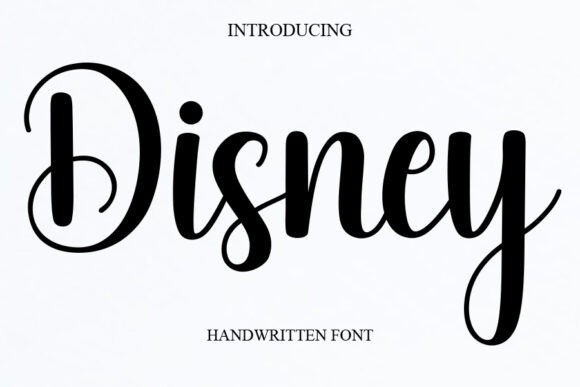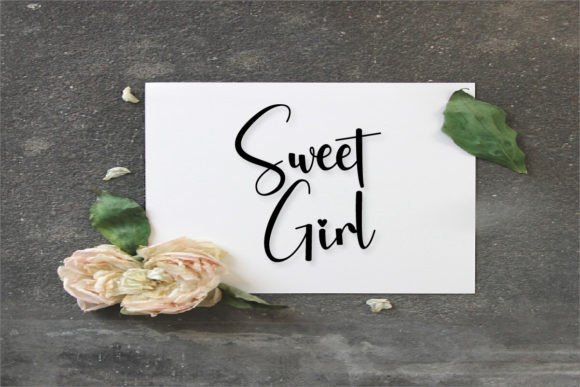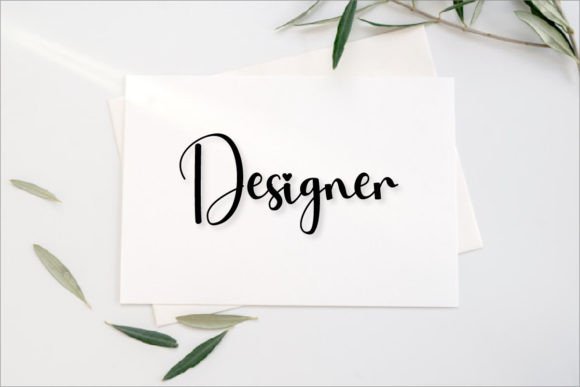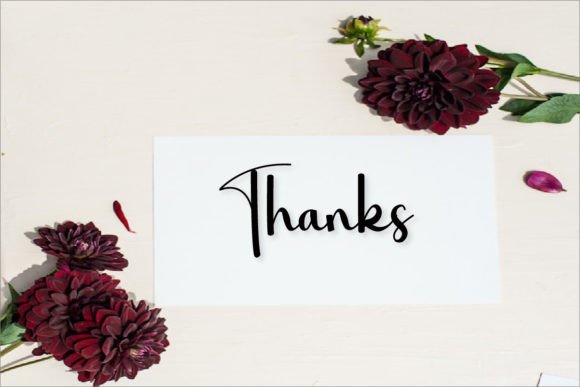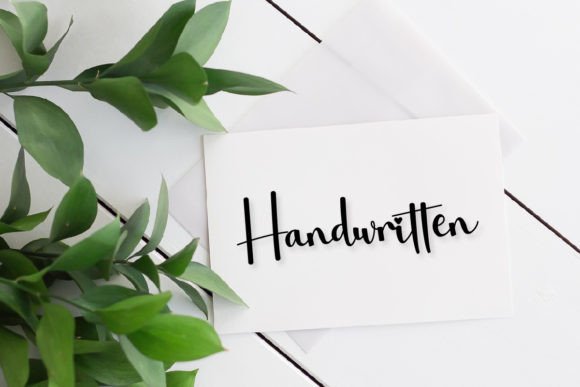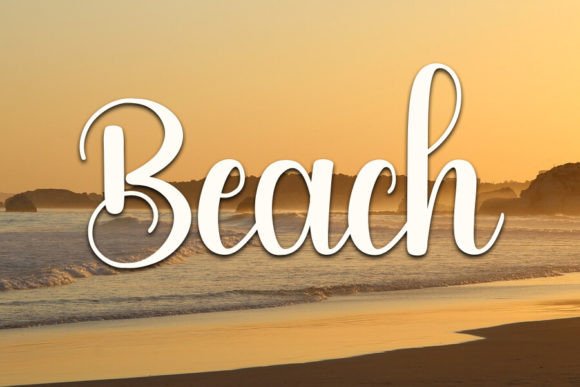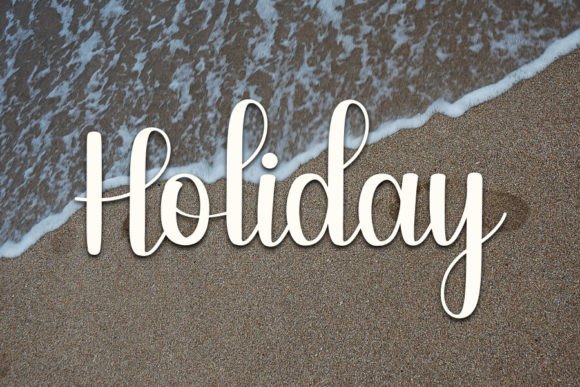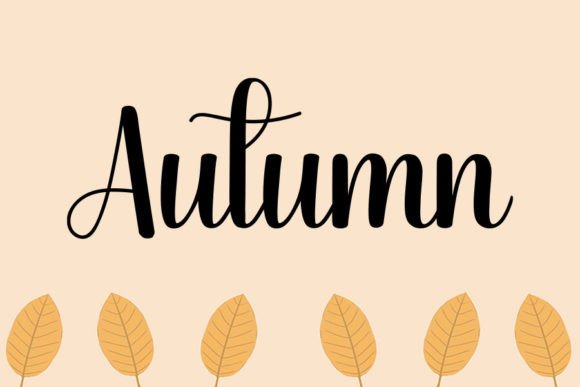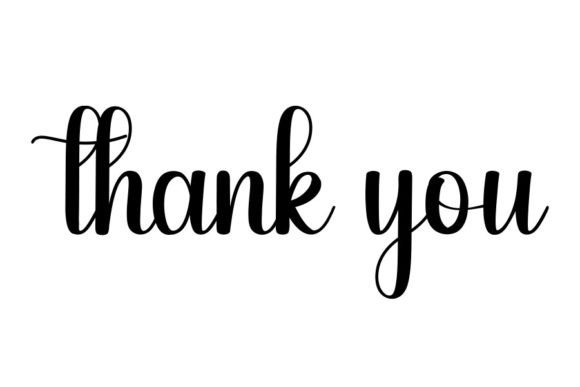
The Magic of Disney Font: Adding a Touch of Whimsy to Your Designs
Do you remember the first time you fell in love with the Disney brand? For many of us, it was the moment we saw the iconic Disney logo or read the beautiful typography on a Disney movie poster. The Disney Font has been a part of that magic for decades, and now you can bring that same enchantment to your designs.
The Disney Font is a sweet and cursive handwritten font that is perfect for adding a touch of joy and romance to your projects. Whether you’re creating branding materials, wedding invitations, or marketing campaigns, this font is sure to make your designs stand out. As a designer, you know how valuable it is to have a versatile font that can elevate your work and make it truly special. The Disney Font is that perfect addition to your toolkit, and we’re excited to share its magic with you.
Key Features of Disney Font
• Unique Characteristics: The Disney Font features a distinctive, hand-drawn style with subtle flourishes and organic shapes, evoking a sense of nostalgia and whimsy.
Disney Font Review
Overall, I’m underwhelmed by the Disney Font. While it’s a nod to nostalgia, I think it falls short in terms of versatility and practical application. ✨ However, there are a few things it gets right.
• ✨ The font does capture the essence of classic Disney lettering, which can be a nice touch for projects that require a retro or vintage feel.
• ✨ The font family includes a range of weights and styles, which can be helpful for creating visual hierarchies and adding depth to designs.
• ✨ The font is well-behaved on screen, with clear and legible letterforms at various sizes.
On the other hand, there are some significant limitations. ⚠️
• ⚠️ The font is quite limited in terms of its range of characters, which can make it difficult to use for projects that require a wide range of languages or special characters.
• ⚠️ The font’s aesthetic is quite on-the-nose, which can come across as cheesy or unoriginal in certain contexts.
• ⚠️ The font is not particularly well-suited for body text or long-form content, as it can be difficult to read at smaller sizes.
Overall, I think the Disney Font is a novelty that’s best used in very specific contexts. While it can be a fun nod to nostalgia, it’s not a particularly practical or versatile font for everyday use.
Tips for Getting the Most Out of the Disney Font
Use the Disney Font to create whimsical and playful designs that evoke a sense of nostalgia and wonder. Consider pairing it with bold colors and illustrations to create a cohesive look.
The Disney Font is perfect for:
• Children’s party invitations and decorations
• Disney-themed merchandise and branding
• Whimsical and playful designs for social media and marketing materials
Alternatives to Disney Font for Designers
Comic Sans MS is a sans-serif font designed to mimic the feel of handwritten text. It’s often used for informal or playful designs, such as children’s books, magazines, and websites. It’s a popular alternative to Disney Font for its friendly and approachable feel.
Comparison to Disney Font: While both fonts have a playful feel, Comic Sans MS is more informal and less elegant than Disney Font.